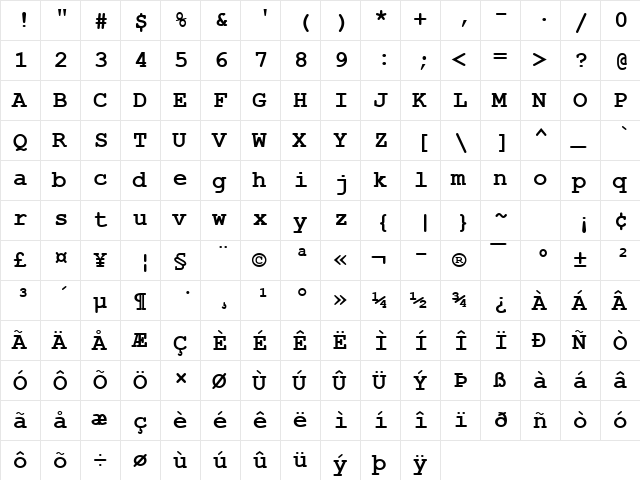
Courier New Bold
Design Context for Courier New Typeface
Courier New uses fixed-width spacing throughout, giving it the structured, systematic character associated with coding environments and technical documentation. Its bold stroke weight gives it real presence on the page.
Pro Tip: Pair Courier New with a proportional sans for UI contexts where code-style labels and regular body copy need to coexist.